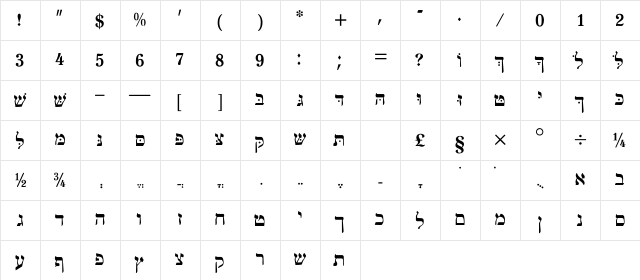
Vilna Regular
Design Context for Vilna
Vilna is a composed and adaptable typeface that performs quietly and consistently across a wide range of design contexts.